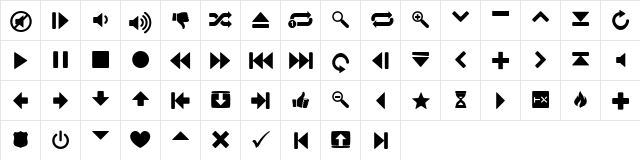
Guifx v2 Transports Regular
Design Context for Guifx v2 Transports Typeface
Guifx v2 Transports brings high-energy athletic personality to the page — its confident, muscular forms are built for impact.
Built for sports team identities, athletic apparel, event posters, and high-energy promotional material.
Pro Tip: Guifx v2 Transports thrives on contrast — try it large, bold, and tight against a clean background for maximum visual impact.